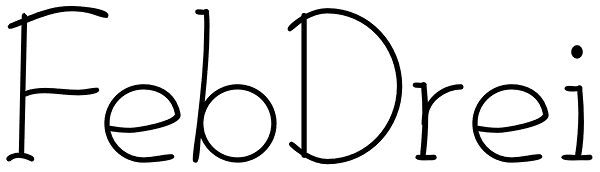
FebDrei
This plain face of very neat, meticulous handwriting was created in the process of making the fonts AllSmiles and BringInTheFrowns and can be used with them. Or if you just want neat, meticulous handwriting in plain and bold, you can use it alone.
FebDrei Bold
FebDrei